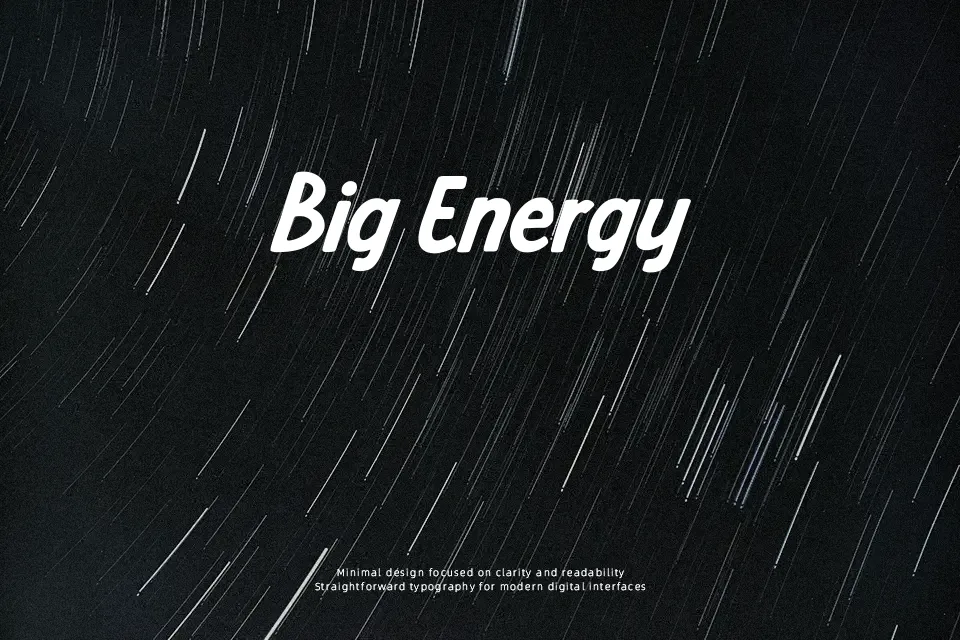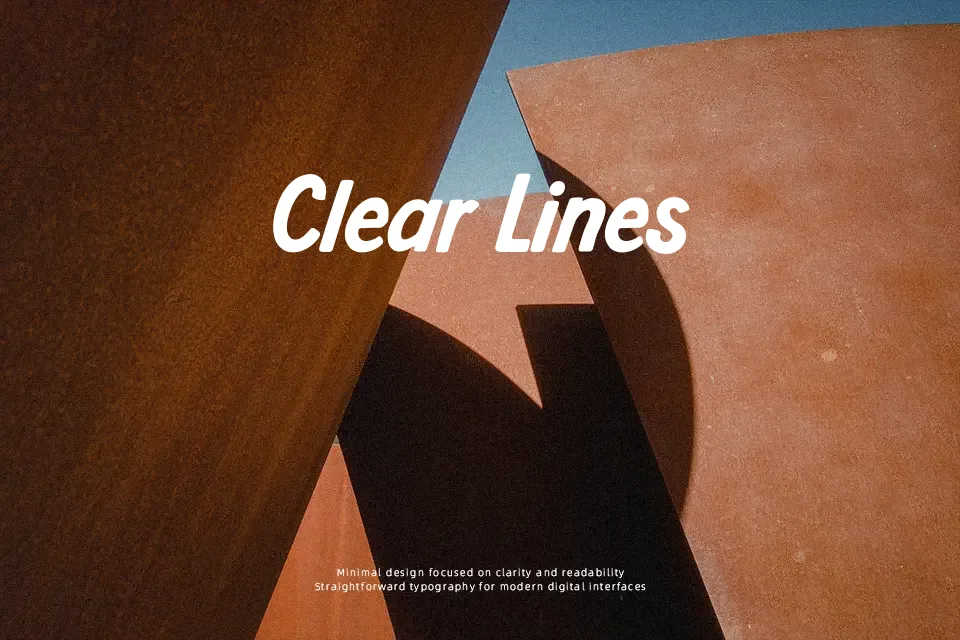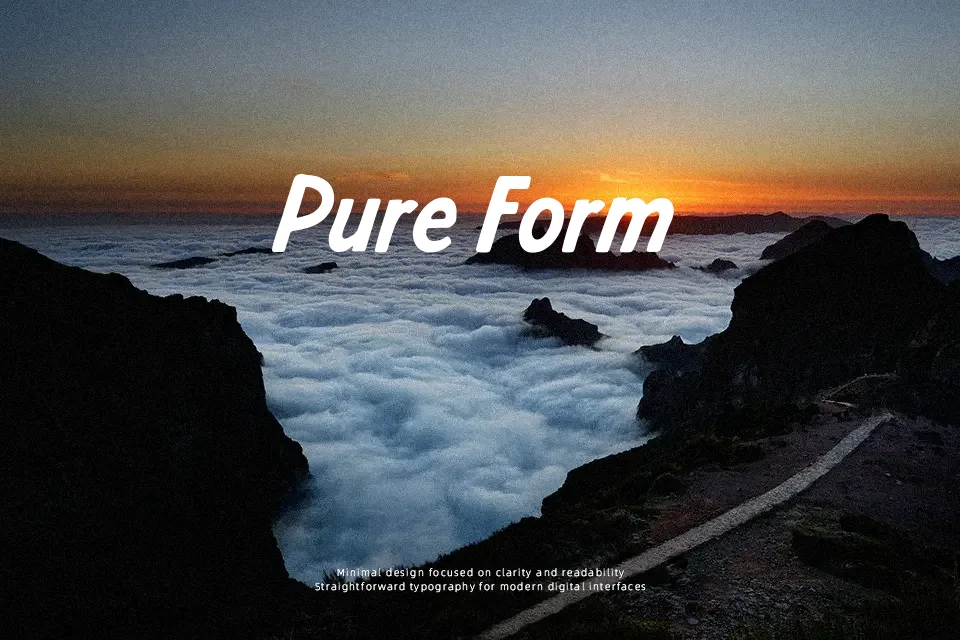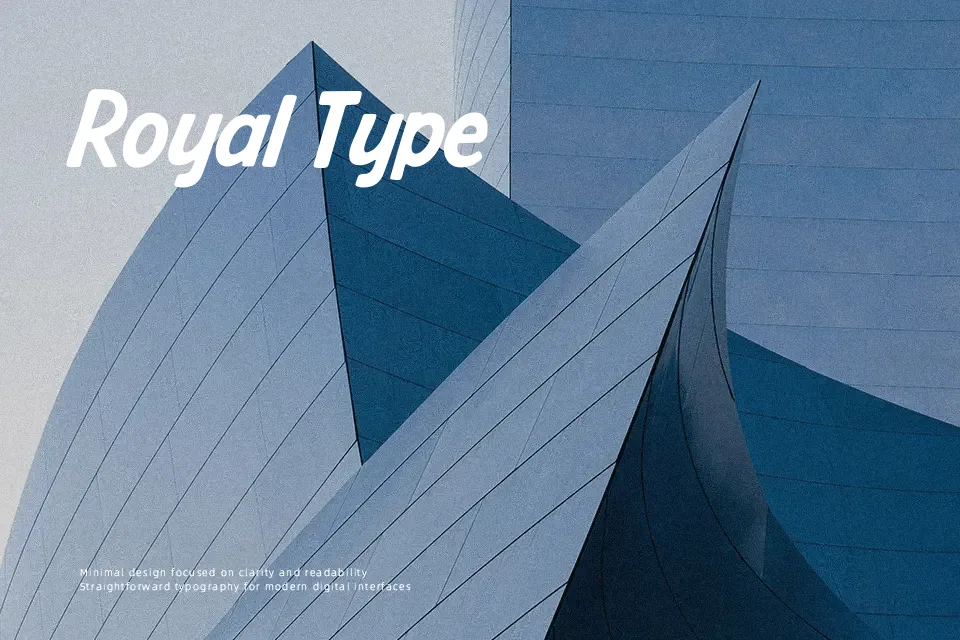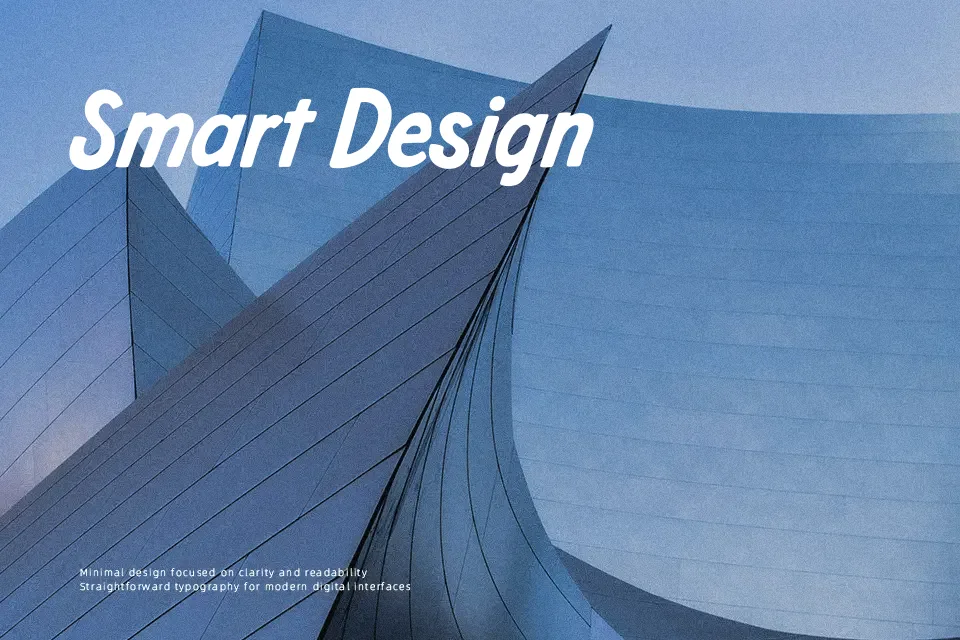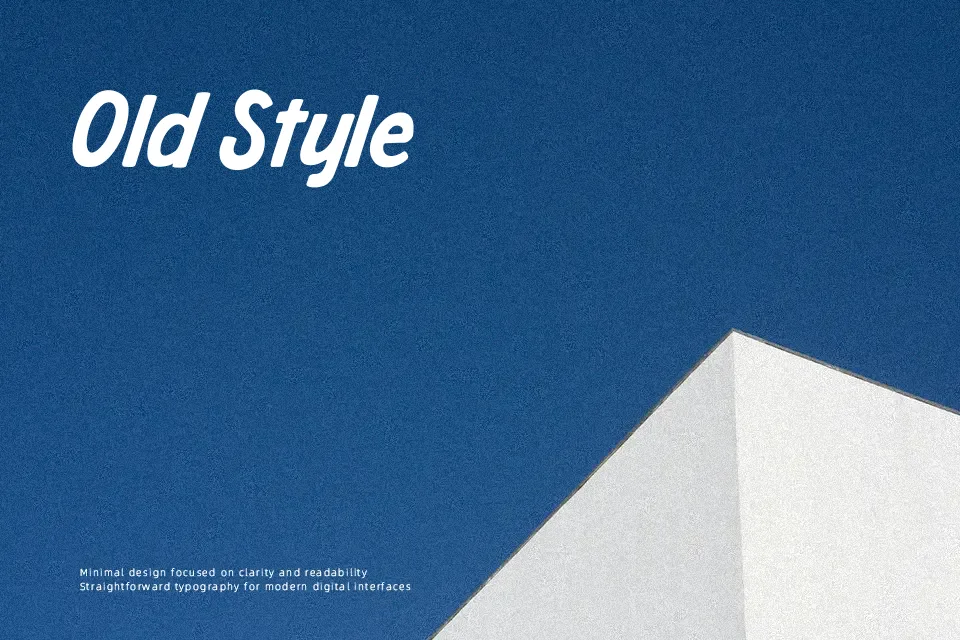
Super Duty Font
Designed by BLKBK Fonts
A bold music album cover or streetwear poster benefits immediately from the raw aesthetic of Super Duty Font. Built with expressive brush strokes, irregular edge contours, and varied character proportions, the typeface creates an organic and spontaneous atmosphere. Letterforms feature moderate spacing with energetic, dynamic rhythm that preserves individual character identification across medium to large sizes. The design performs effectively on punchy display headlines, product packaging, and event banners where strong artistic presence is required. However, the heavy brush texture and variable glyph widths make the design unsuitable for extended body text or compact mobile interfaces. Stroke density reduces comfort during continuous reading.
Perfect for branding, headline, and music, with a artistic and brush style.